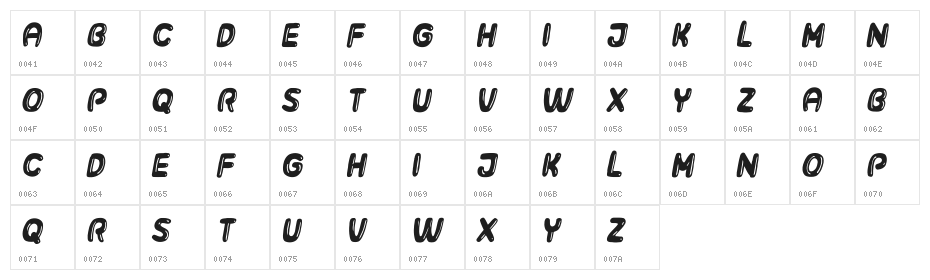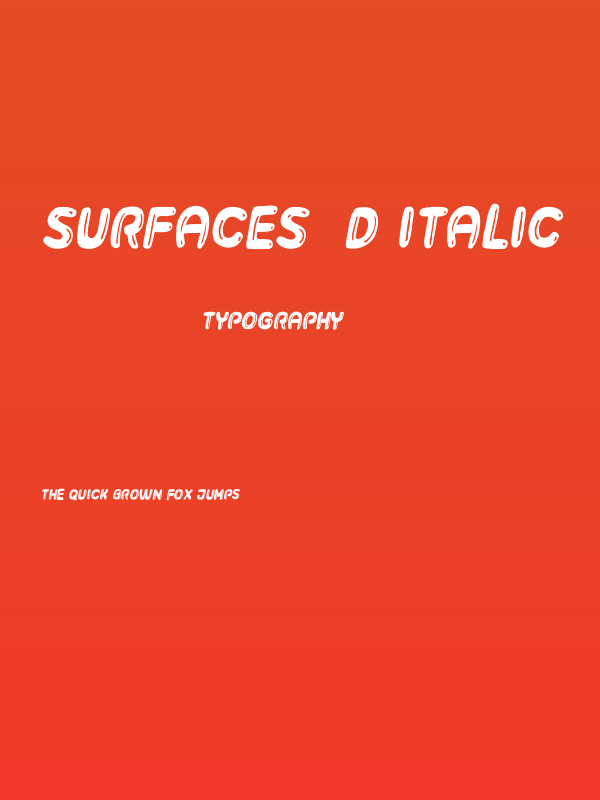
Surfaces 3D Italic Font
Surfaces 3D Italic Description
This font features a bold, three-dimensional style with a playful and dynamic appearance. The letters are italicized, giving them a forward-leaning motion that adds to their energetic feel. Each character is outlined, creating a shadow effect that enhances the 3D illusion. The strokes are thick and rounded, contributing to a friendly and approachable aesthetic. The overall design is modern and eye-catching, making it suitable for projects that require a strong visual impact.
| Proposed Projects | Ideal for posters, headlines, logos, and any design needing a bold, energetic look. |